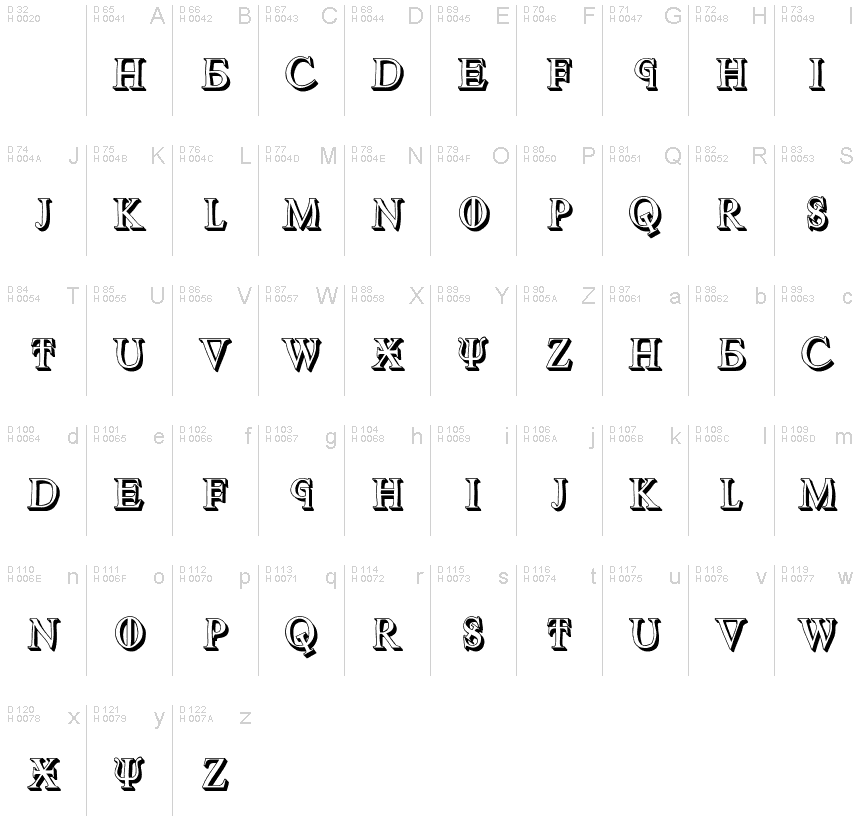
Cochem Regular
Cochem, the stunning display font by Vladimir Nikolic, is a semi-light 3D serif typeface that is perfect for creating logos, branding materials, and advertising campaigns. With its unique and elegant style, Cochem is suitable for projects that require a touch of sophistication and professionalism. It can be used to create eye-catching headlines or to add a touch of elegance to product packaging. The semi-light weight of this font makes it easy to read even at smaller sizes while the 3D serifs lend it a distinctive appearance that creates visual interest. Whether you're designing print materials or creating digital content, Cochem is sure to make your project stand out from the crowd.